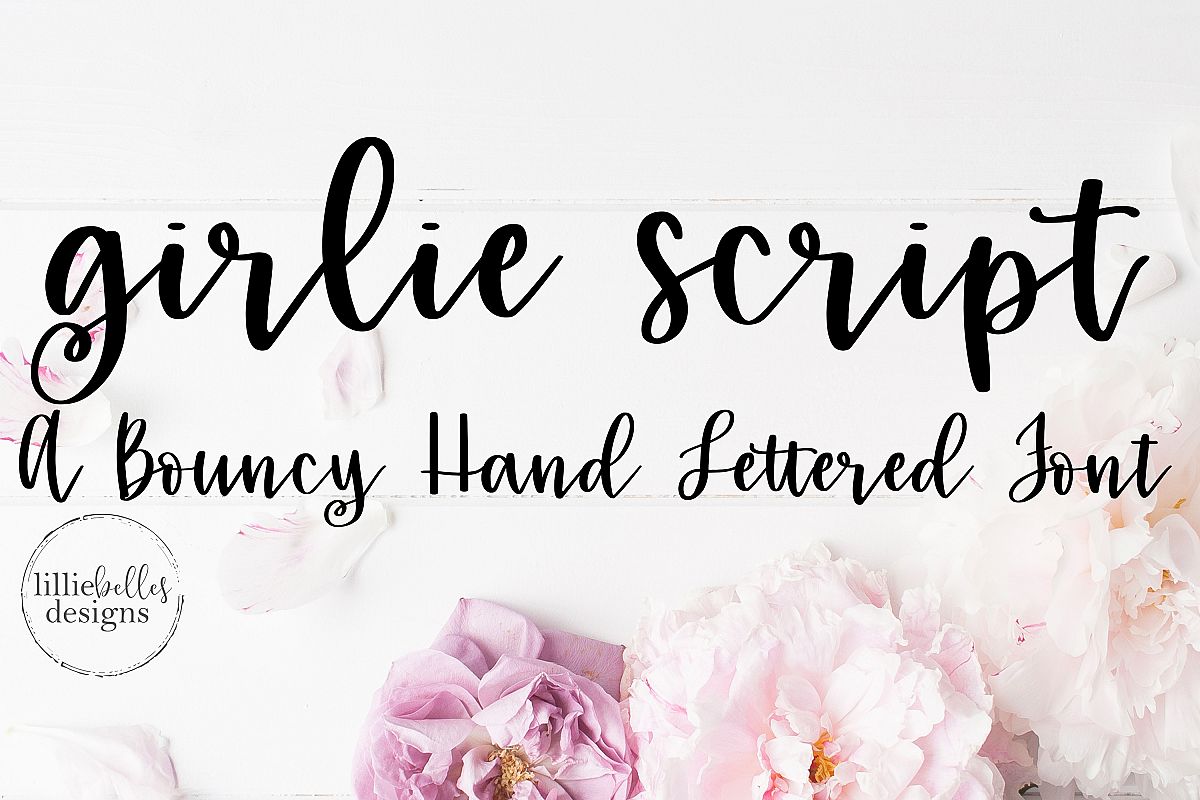
Girlie Script
Girlie Script - a bouncy hand lettered font
The Girlie Script font is definitely one of my favorites! You can add extra flair to your characters with the swirly alternates.
• Uppercase and lowercase script characters
• Numbers, punctuation and symbols
• Standard ligatures and alternates